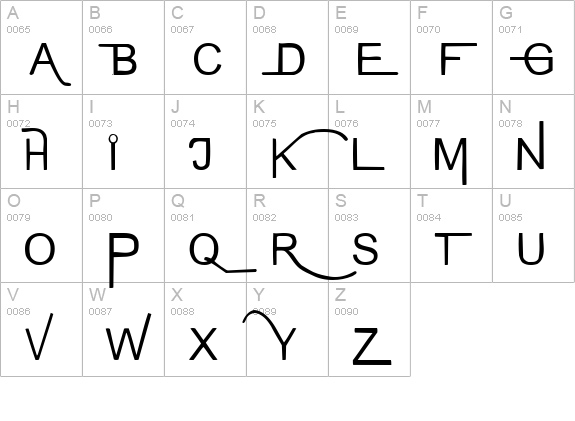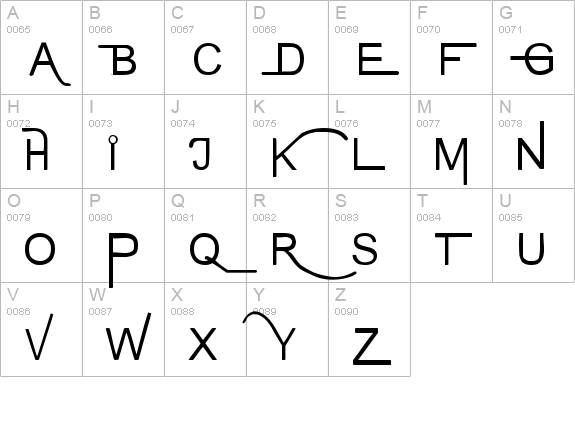
Regork Font Details
Regork is a stunningly versatile font that combines elegance and modernity in perfect harmony. With its clean lines and bold presence, this font is sure to make a bold statement in any design project. Whether you're creating eye-catching logos, captivating headlines, or stylish branding materials, Regork is the perfect choice to elevate your work to the next level. What sets Regork apart is not just its striking visual appeal but also its accessibility. This remarkable font is available for free download at FontsMarket.com, making it easily accessible to designers and creatives around the world. The creators of Regork believe in the power of design and its ability to inspire, and that's why they have made this exceptional font freely available to everyone. The versatility of Regork is truly unparalleled. Its carefully crafted letterforms exude a sense of sophistication and professionalism, making it ideal for a wide range of projects. Whether you're designing for the fashion industry, the corporate world, or the creative arts, Regork will effortlessly adapt to your needs and help you create captivating visuals that leave a lasting impression. With its extensive character set, Regork supports multiple languages, ensuring that your message can be communicated effectively to a global audience. Its clean and legible design ensures readability across various platforms and mediums, whether it's print, digital, or even on-screen displays. Regork is more than just a font; it's a powerful tool that empowers designers to bring their creative visions to life. Its sleek and contemporary aesthetic, combined with its ease of use, makes it a go-to choice for professionals and beginners alike. So why wait? Download Regork for free at FontsMarket.com and unlock endless possibilities for your next design project.